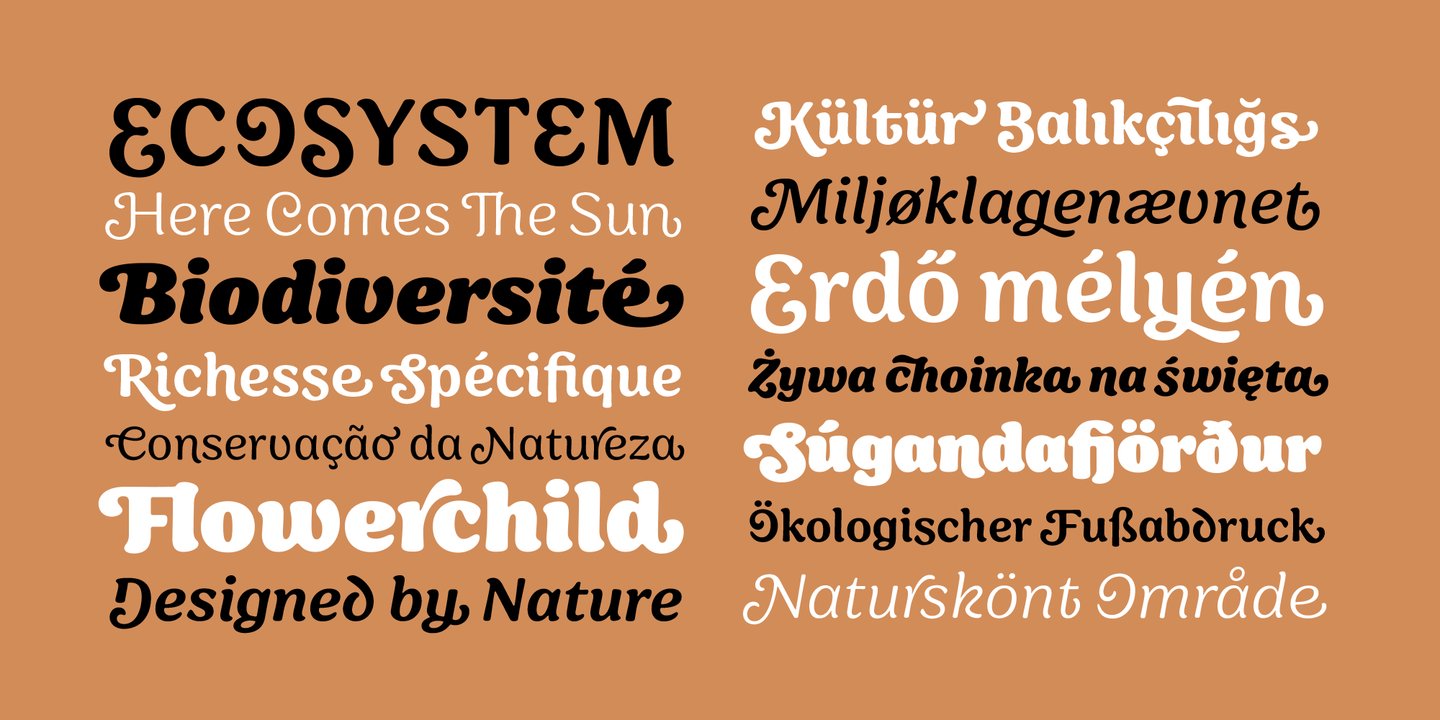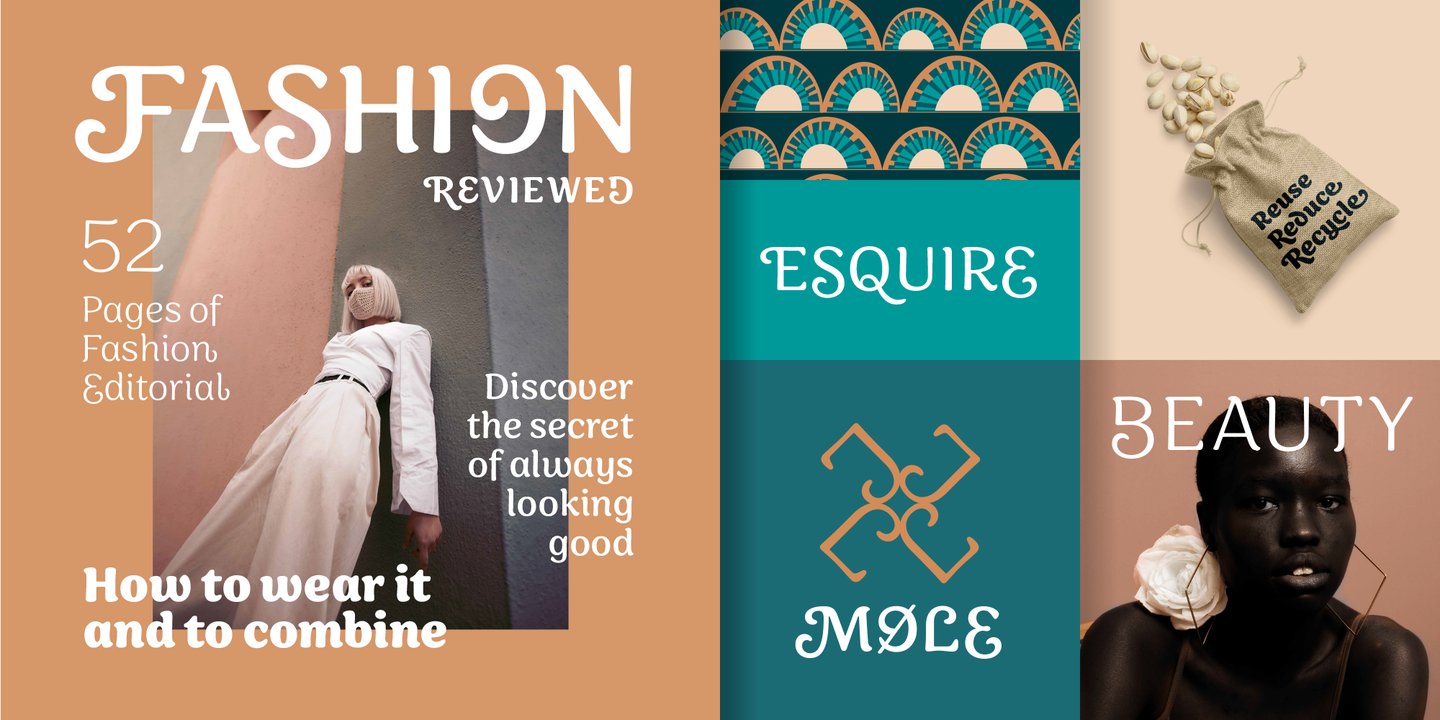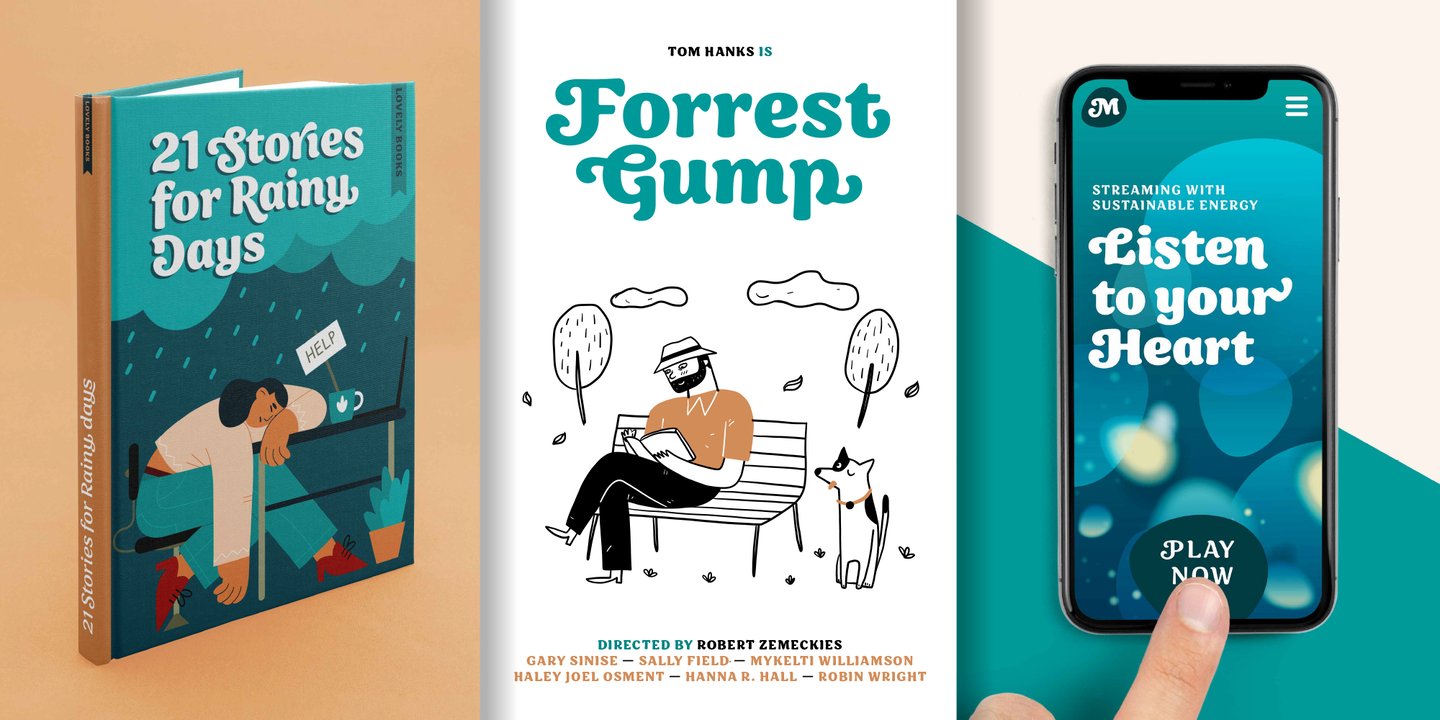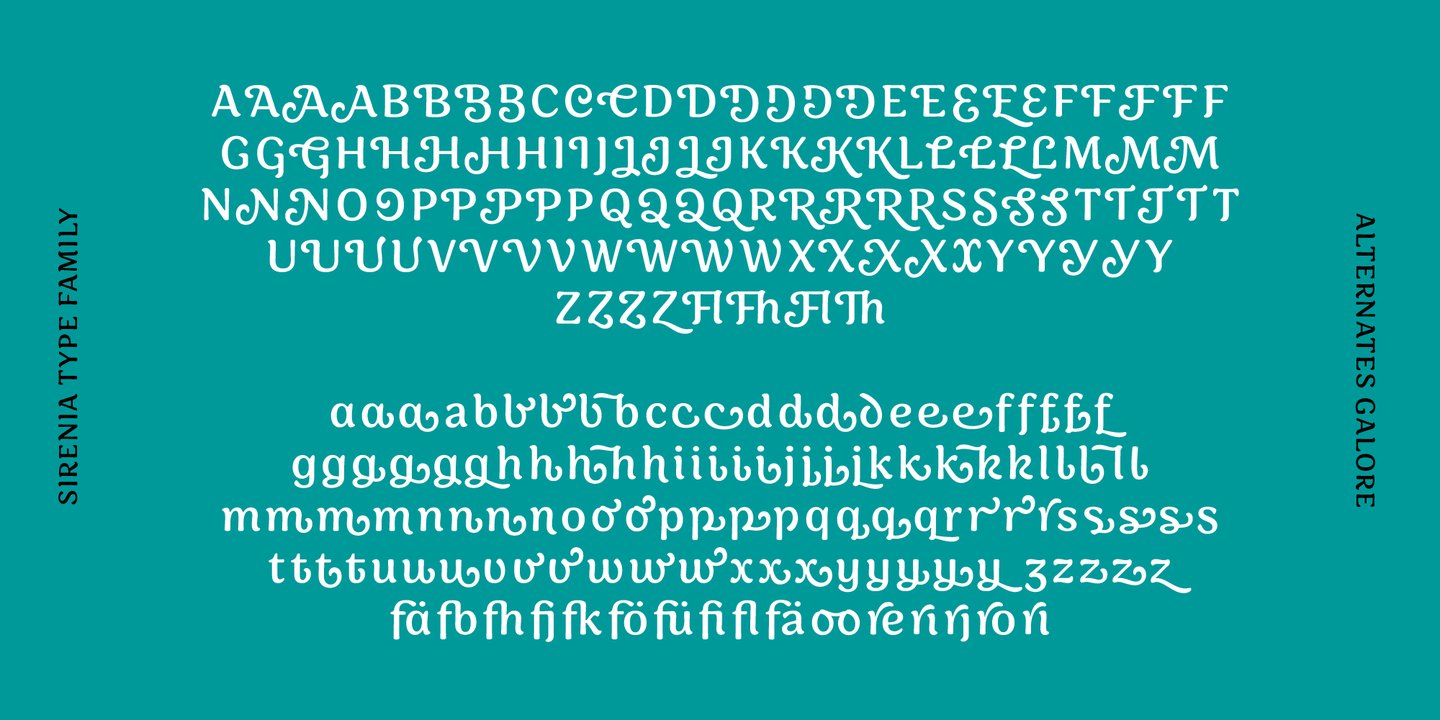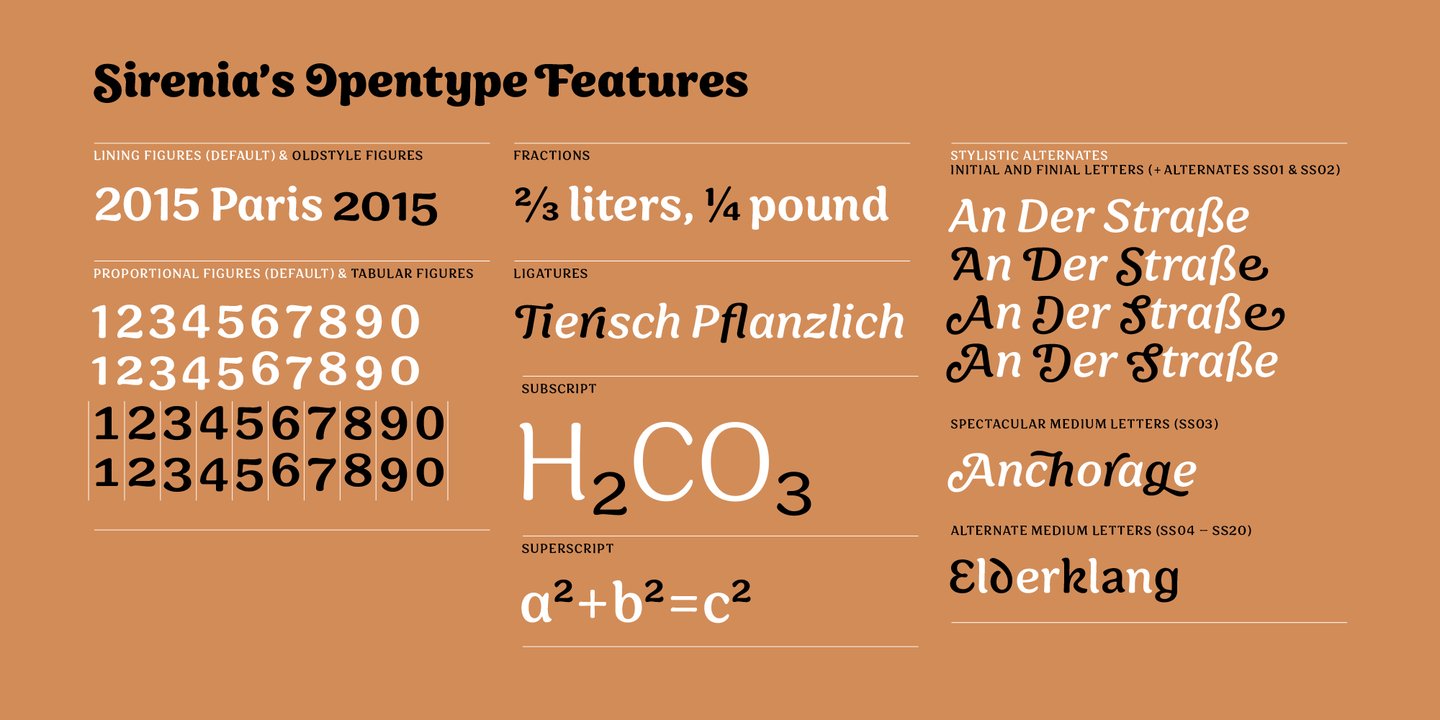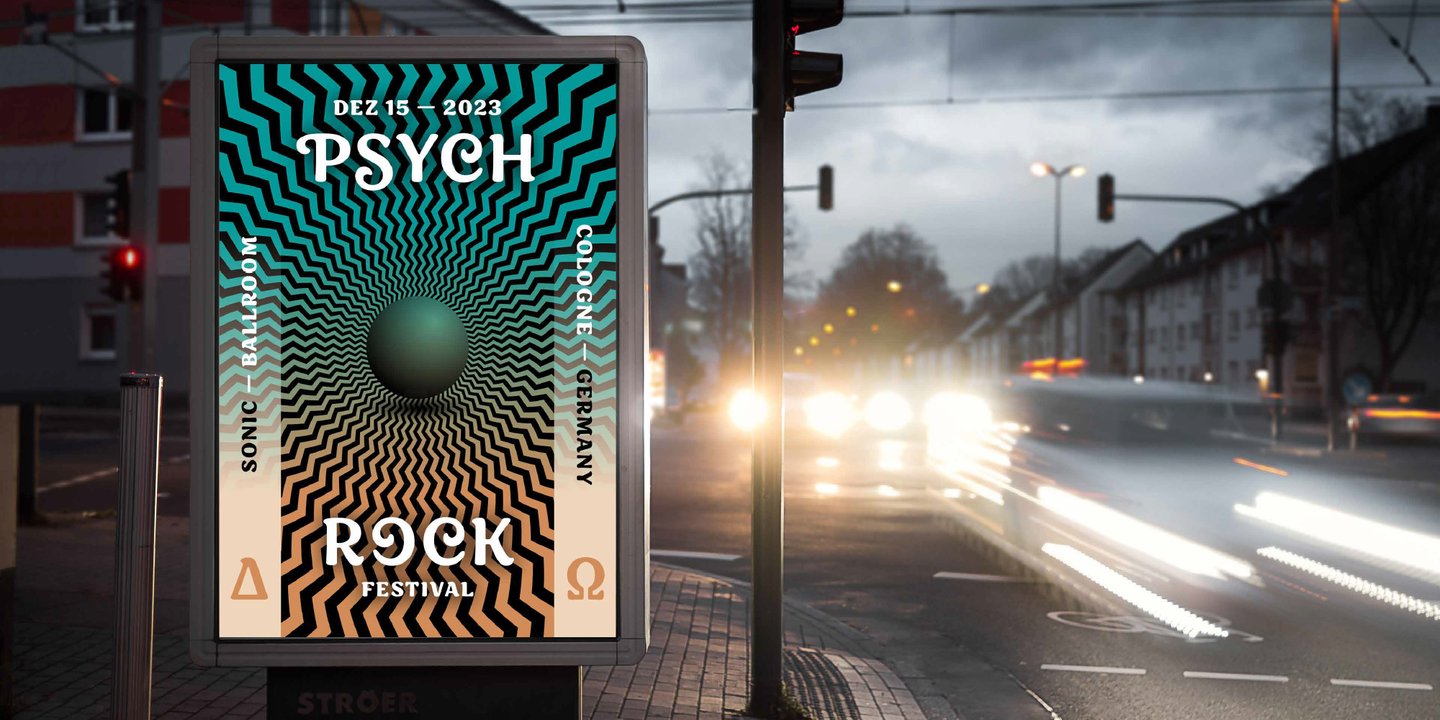
Sirenia is designed by nature! A friendly display typeface with organic letterforms and flowing transitions, as if naturally grown. This authentic natural look is ideally suited for lifestyle products, the food & beverage sector and for sustainable design. Sirenia’s 1270 characters contain many decorative letters and swash variations for initial, medial and final letters. This allows the designer to create lively logotypes according to her/his own ideas, matching the respective letter combination.